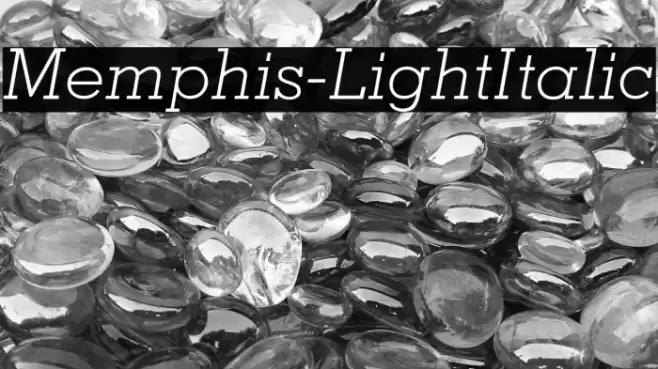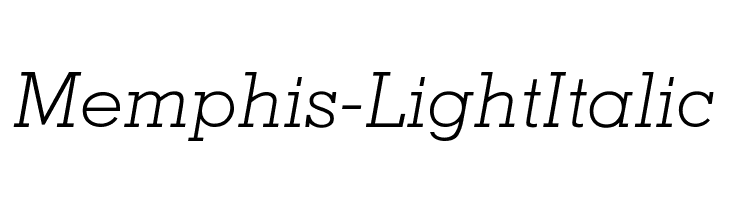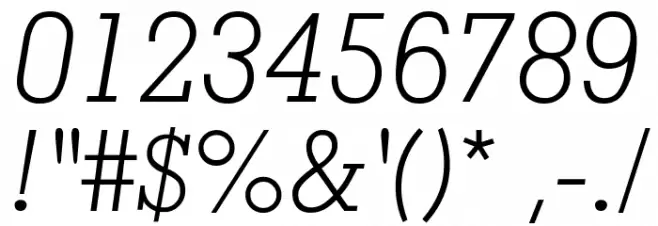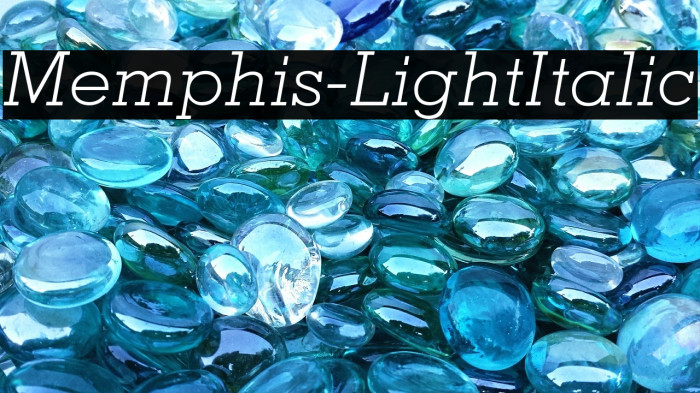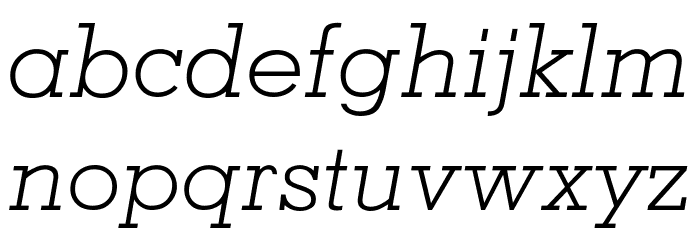
Memphis-LightItalic Font
Memphis-LightItalic Description
This font features a clean and elegant design with a subtle italic slant, giving it a sophisticated and modern appearance. The characters are well-proportioned with a consistent stroke width, providing a balanced and harmonious look. The uppercase letters are tall and commanding, while the lowercase letters maintain a smooth and flowing style. The numerals are clear and distinct, making them easily readable. Special characters are designed with the same attention to detail, ensuring they blend seamlessly with the rest of the typeface. Overall, this font exudes a sense of professionalism and style, making it suitable for a variety of applications.
A modern, elegant font with a subtle italic slant and balanced proportions from Serif fonts.